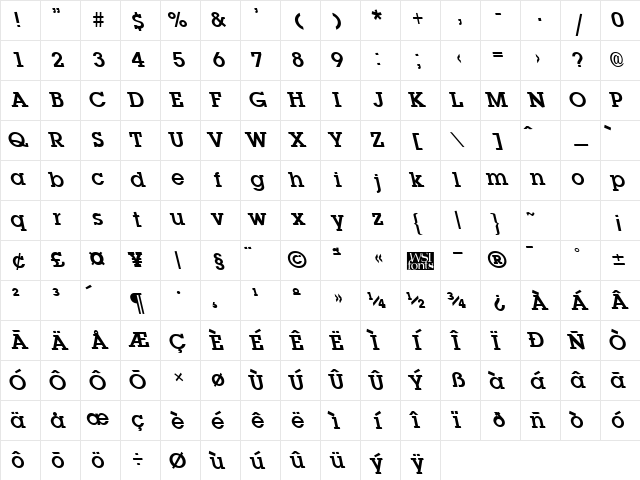
LaplandLefty Bold
Design Context for LaplandLefty
LaplandLefty is a composed and adaptable typeface that performs quietly and consistently across a wide range of design contexts. Its bold stroke weight gives it real presence on the page.
Pro Tip: Use LaplandLefty in both headline and body roles to test its range before committing to a single application.